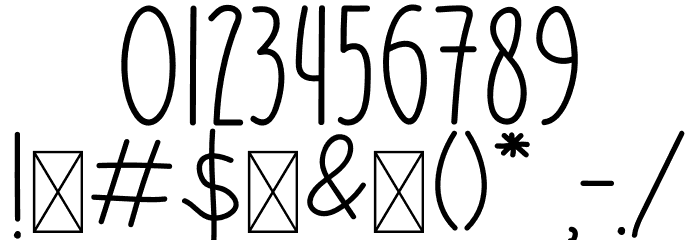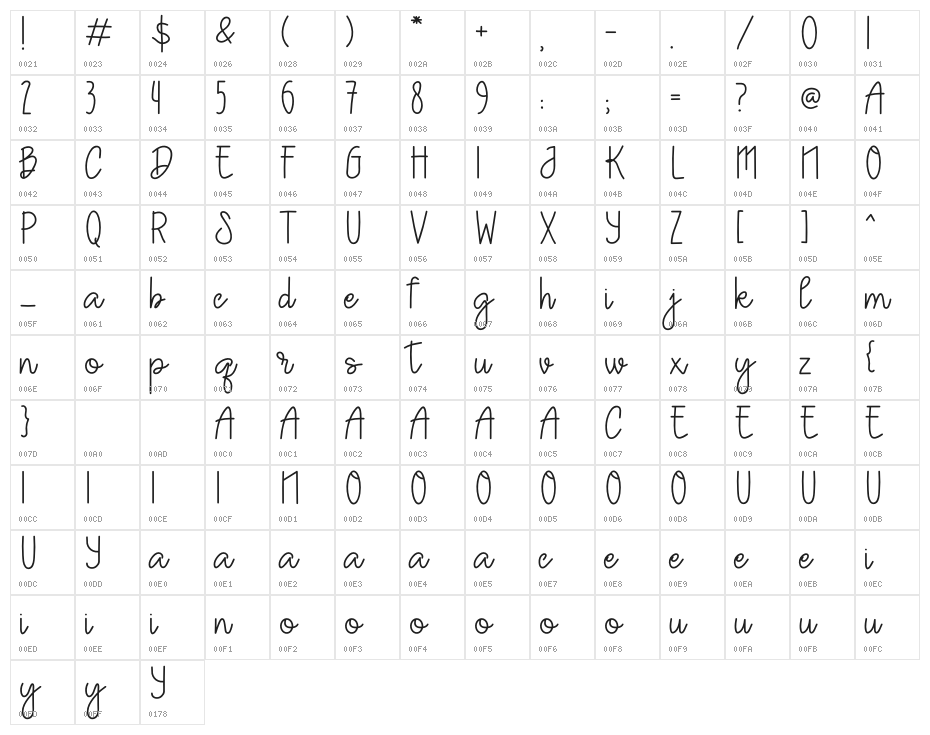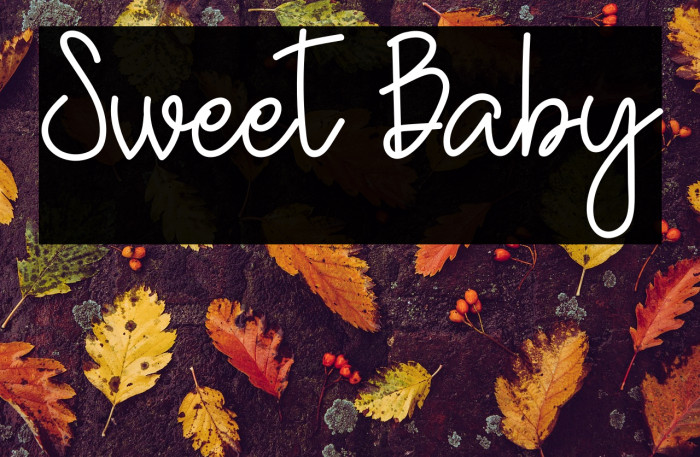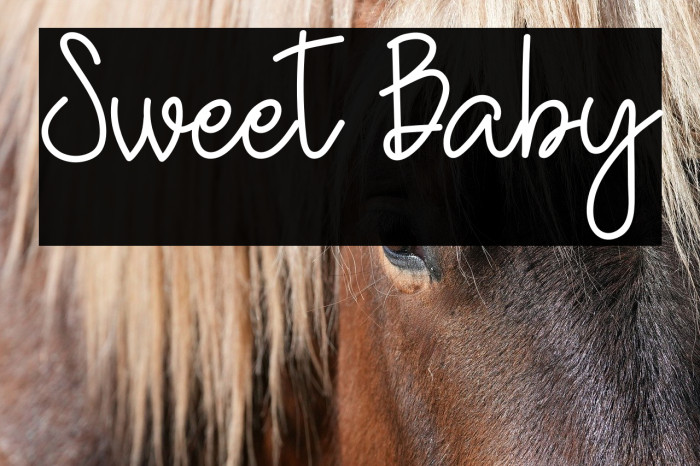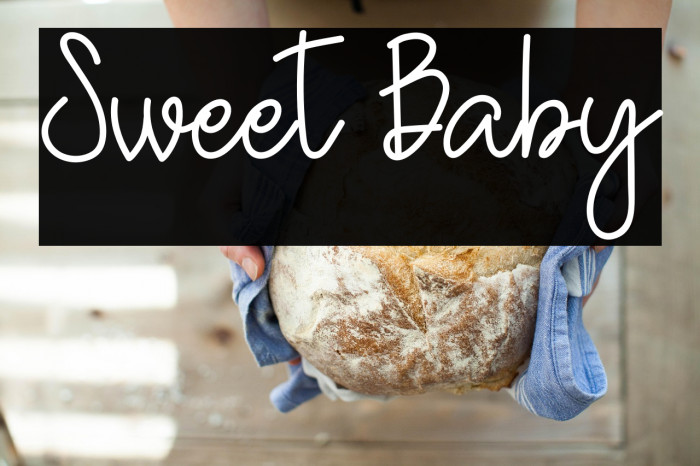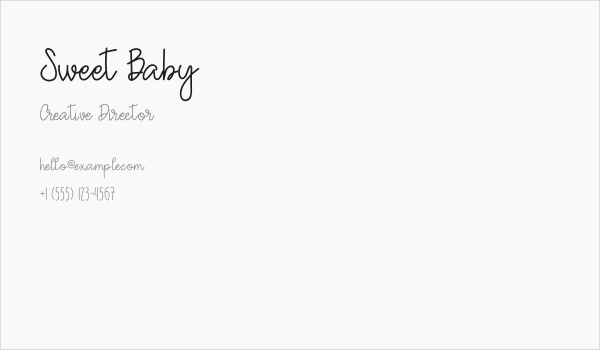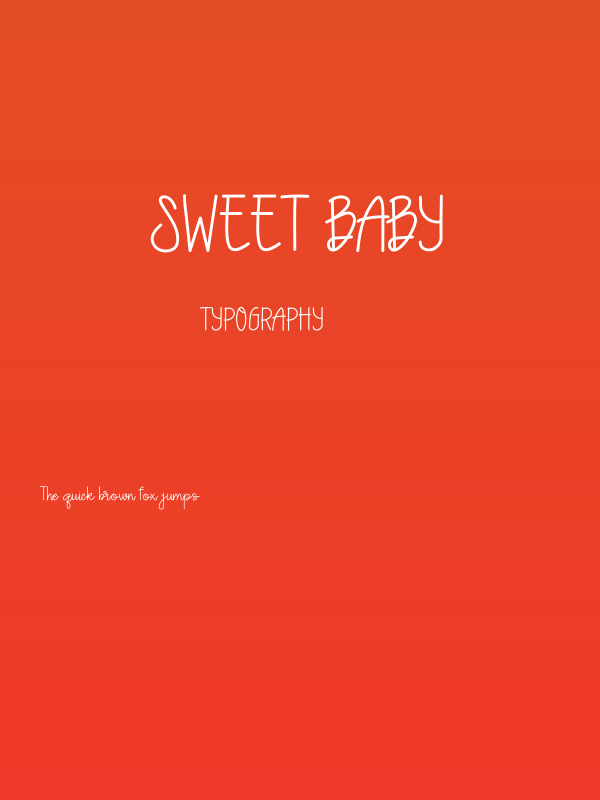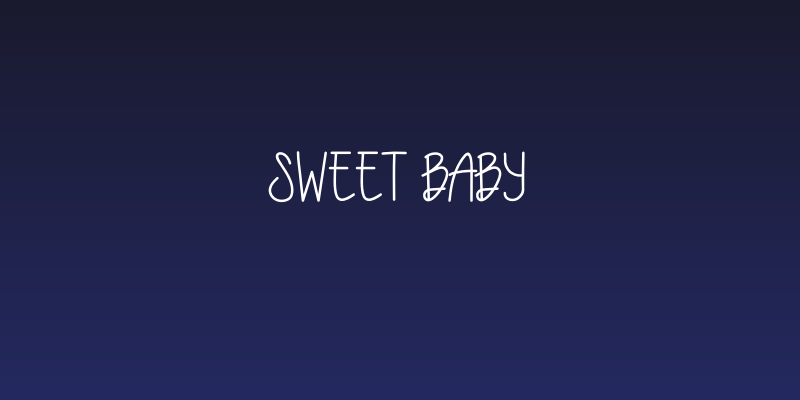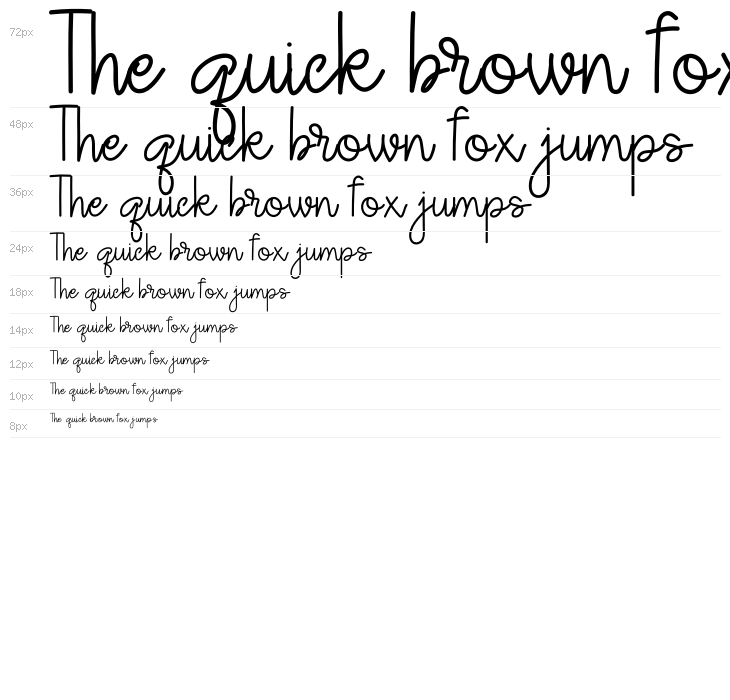
Sweet Baby Font
Sweet Baby Description
This font features a playful and whimsical style, combining both uppercase and lowercase letters with a handwritten touch. The uppercase letters are tall and narrow, with a slight slant that adds a casual feel. The lowercase letters are more fluid and connected, resembling cursive handwriting. Numbers and special characters maintain the same playful aesthetic, making the font versatile for various creative projects. The strokes are consistent in width, providing a clean and uniform appearance. This font is ideal for projects that require a personal and friendly touch, such as greeting cards, invitations, or playful branding.
Overall StylePlayful
Use CaseHeadlines, Logos, Invitations
Proposed ProjectsIdeal for greeting cards, invitations, playful branding, and creative projects.